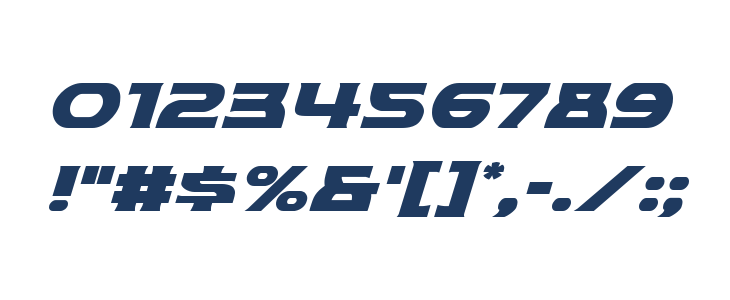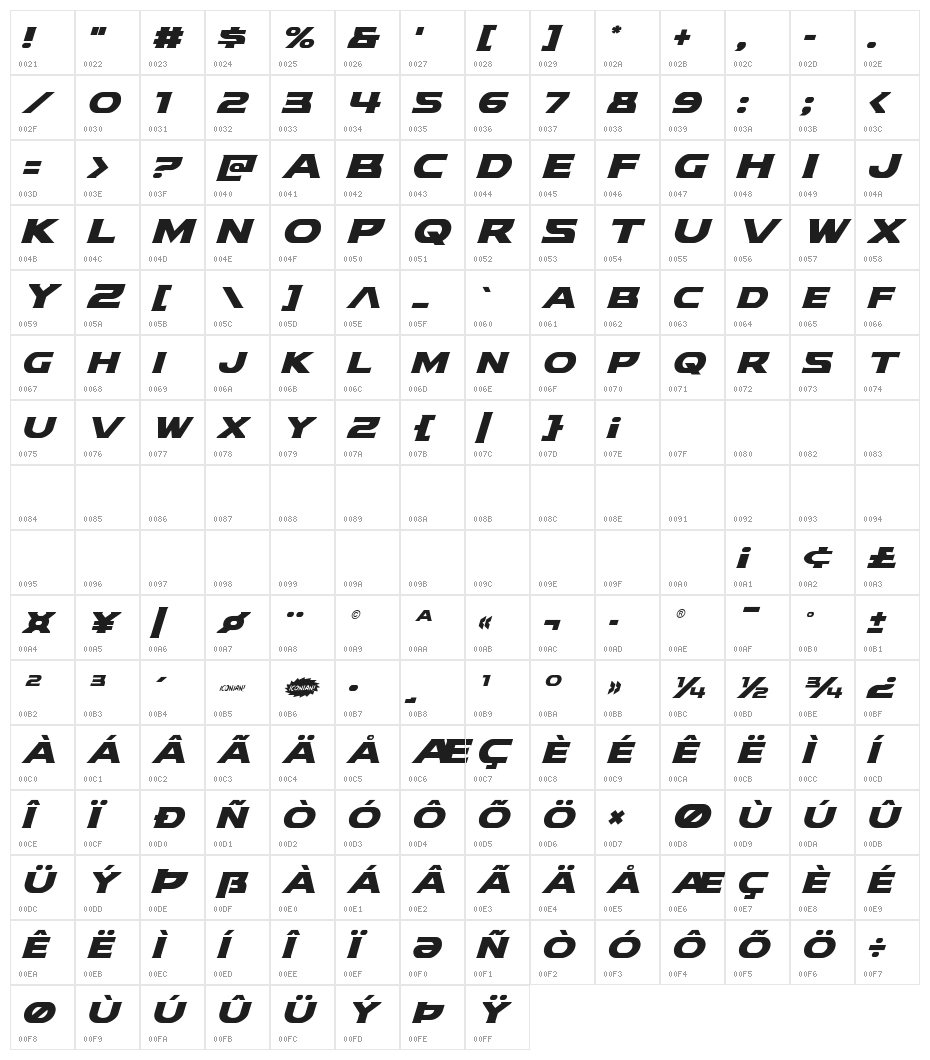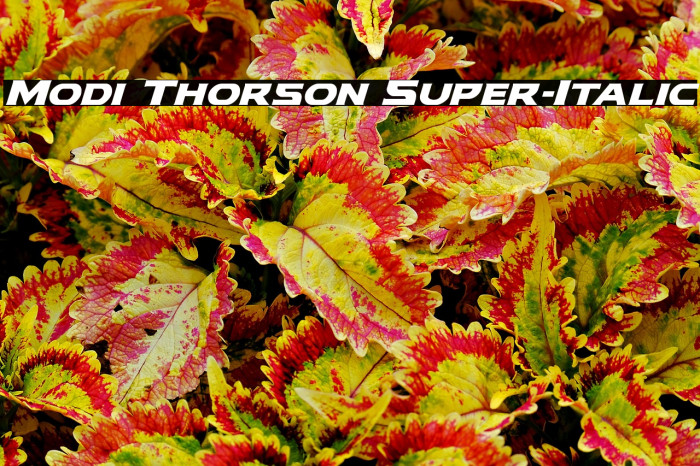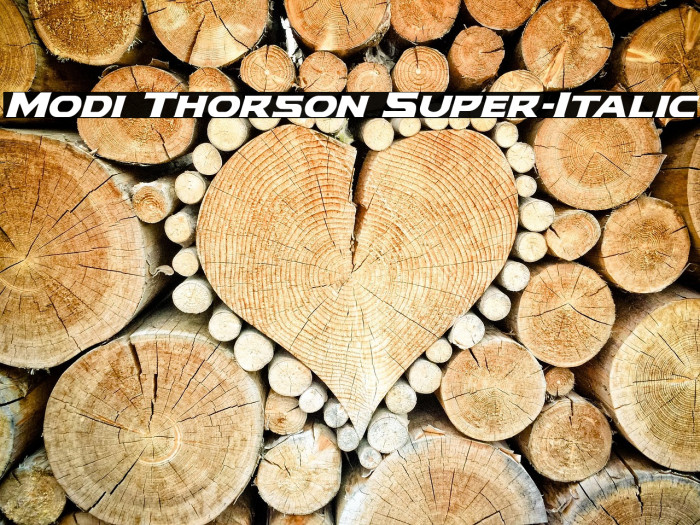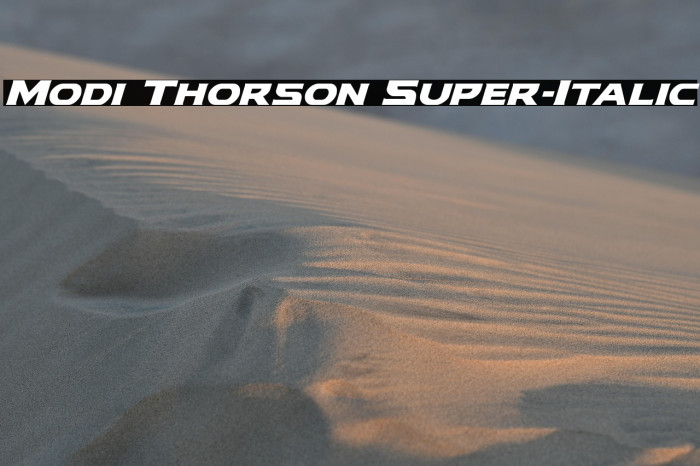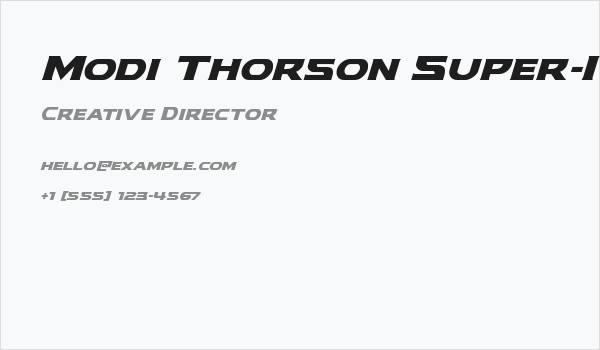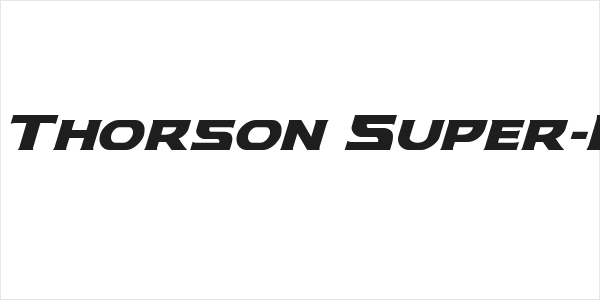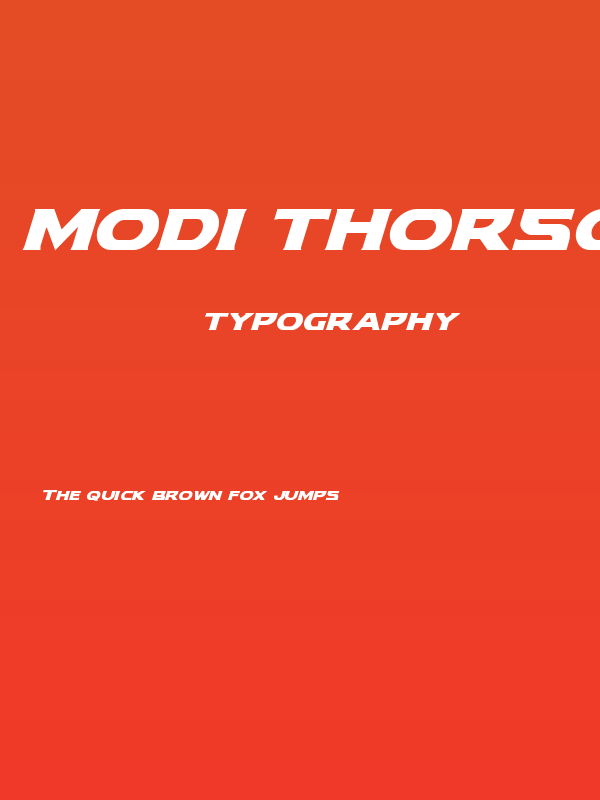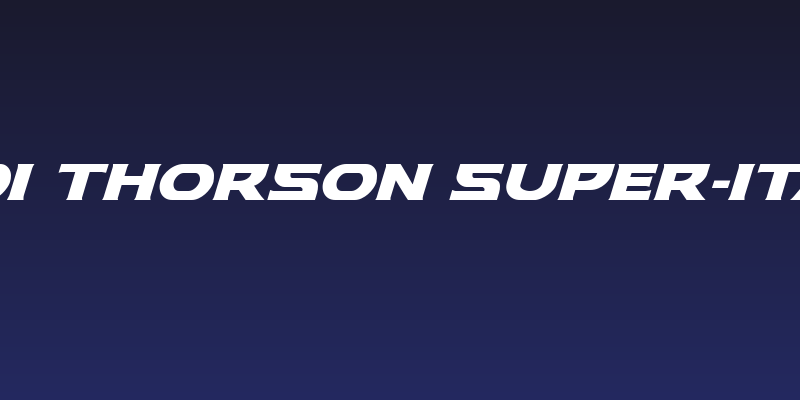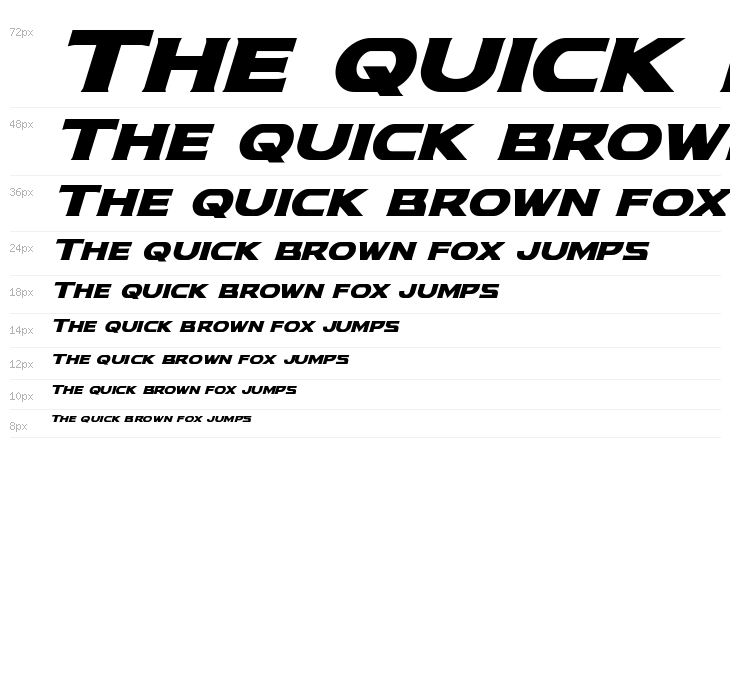
Modi Thorson Super-Italic Font
Modi Thorson Super-Italic Description
This font features a dynamic and energetic style with a strong italic slant, giving it a sense of motion and speed. The characters are bold and impactful, with sharp edges and a modern aesthetic. The uppercase and lowercase letters maintain a consistent style, with the lowercase letters slightly smaller but equally bold. The numerals are clear and distinct, matching the overall style of the alphabet. Special characters are included, maintaining the same bold and italicized characteristics. This font is designed to capture attention and convey a sense of urgency and modernity.
| Proposed Projects | Ideal for sports branding, automotive advertisements, dynamic posters, and modern logo designs. |